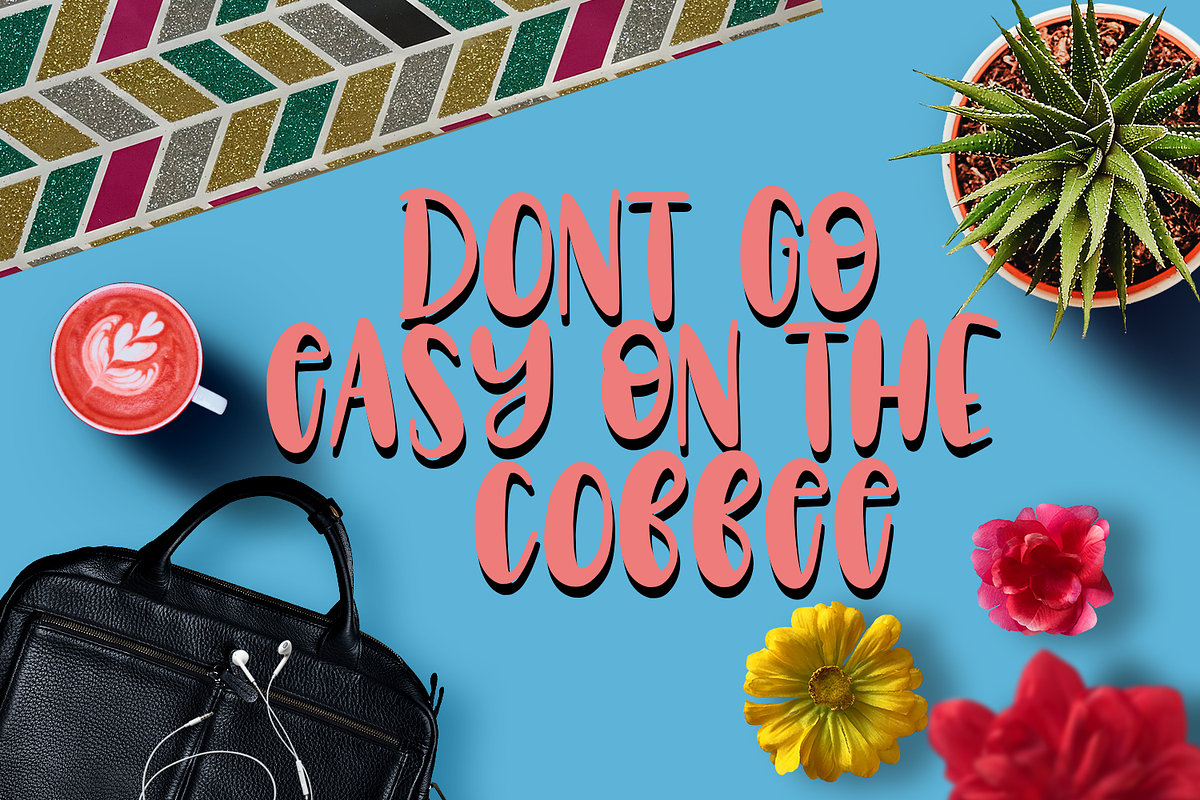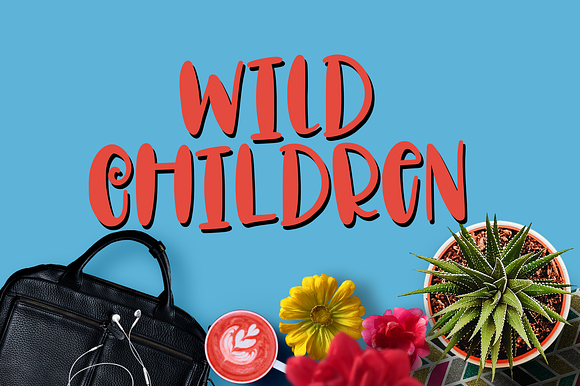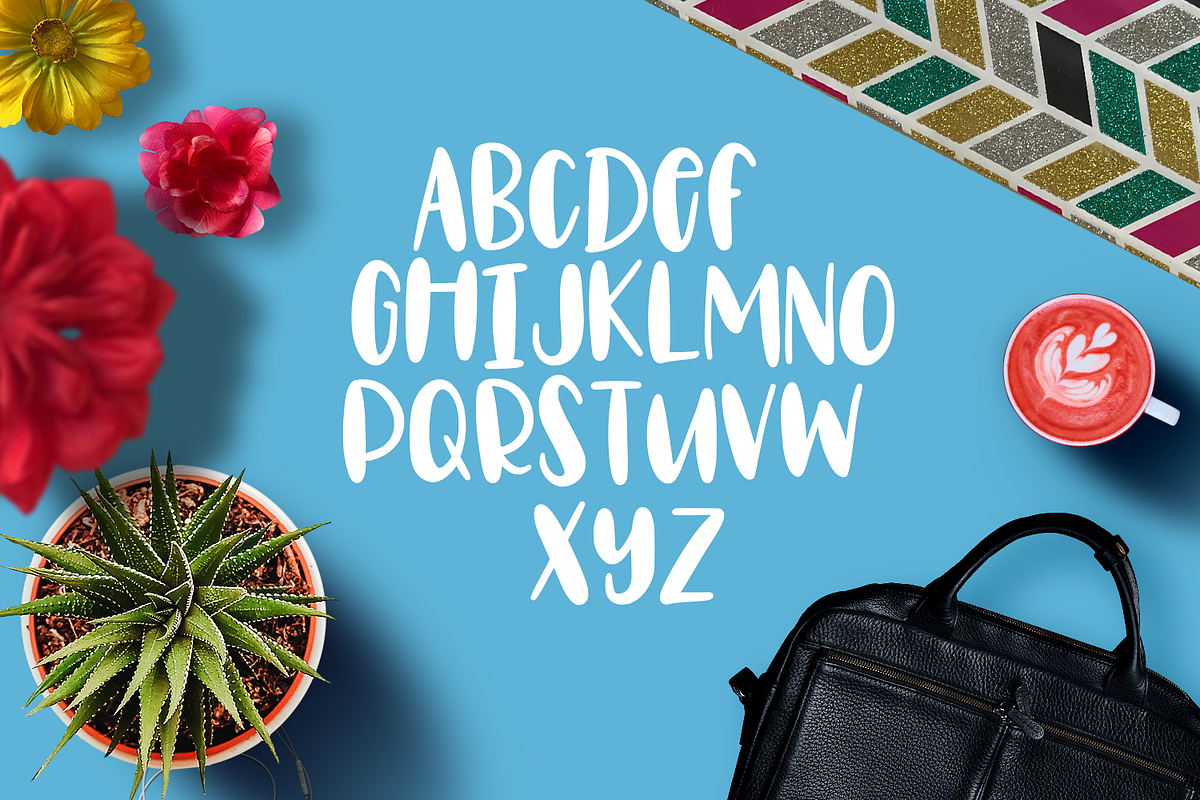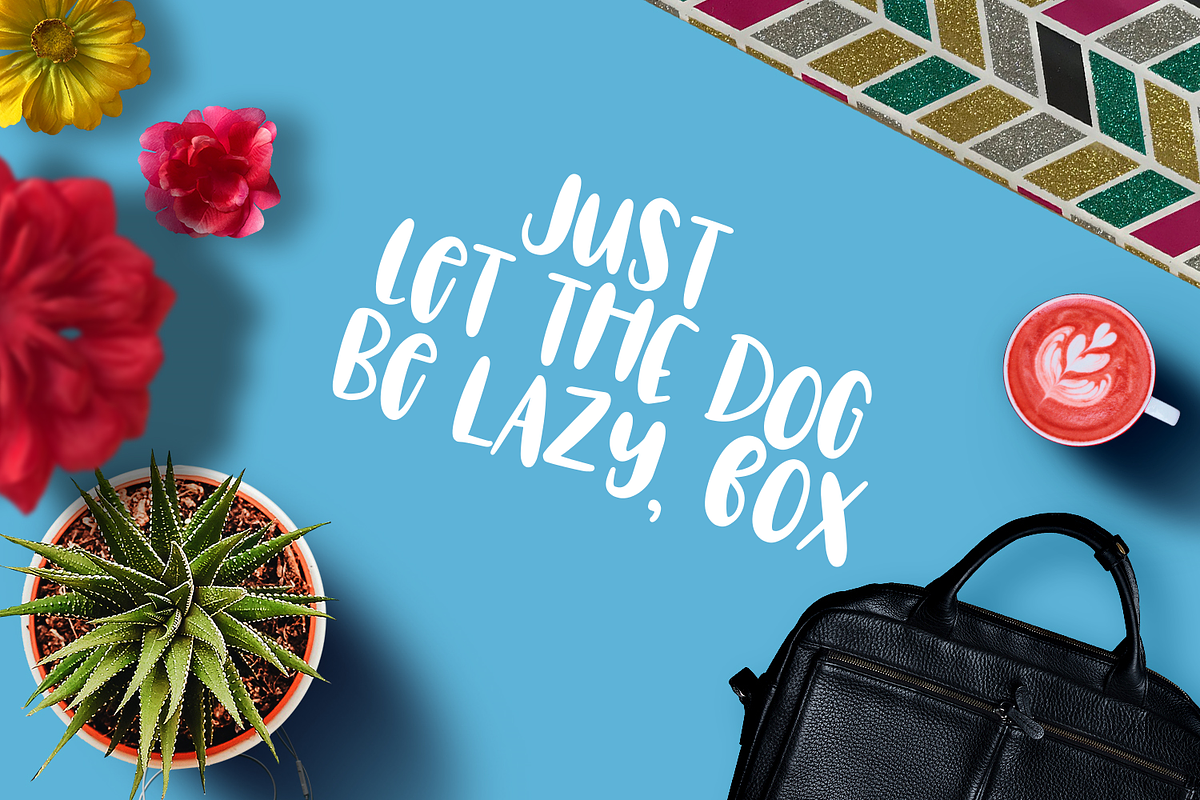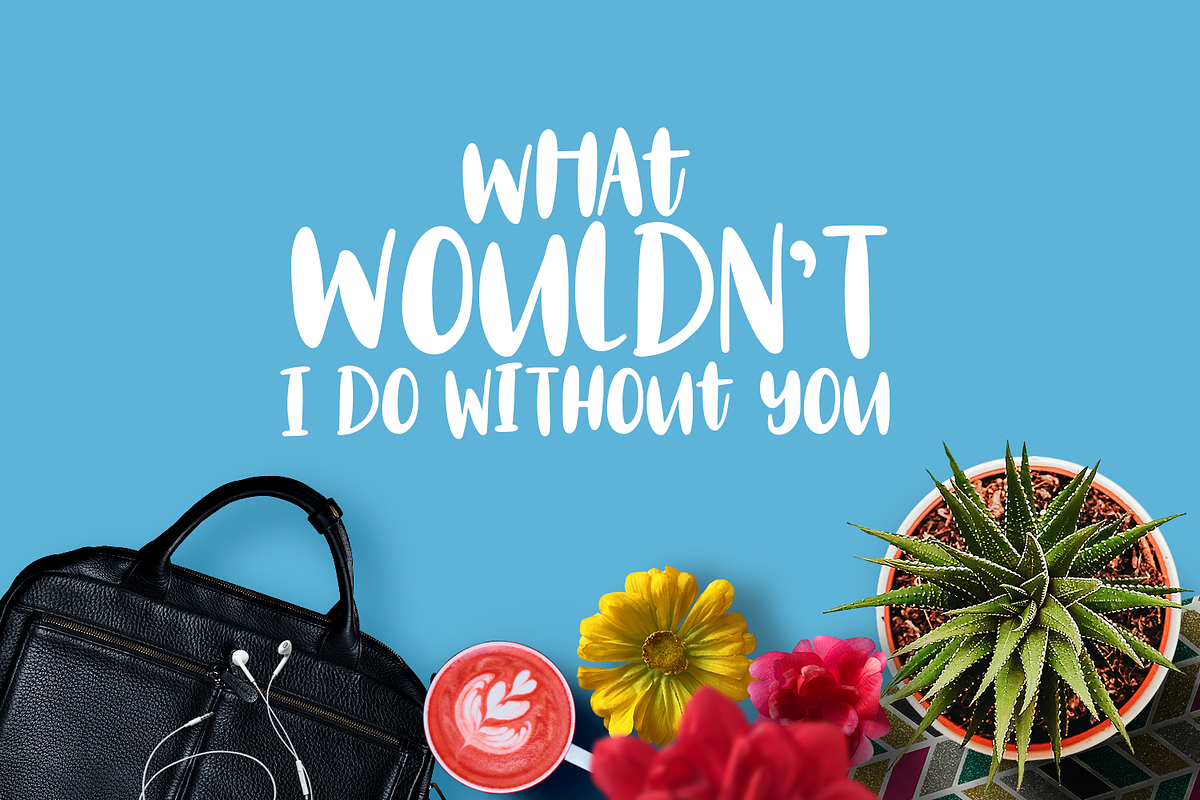
Wild Children - Hand Lettered Font
Why Wild Children - Hand Lettered Font is worth a look
Wild Children - Hand Lettered Font by CraftyLittleNodes fits naturally into Branding, posters, packaging, typography.